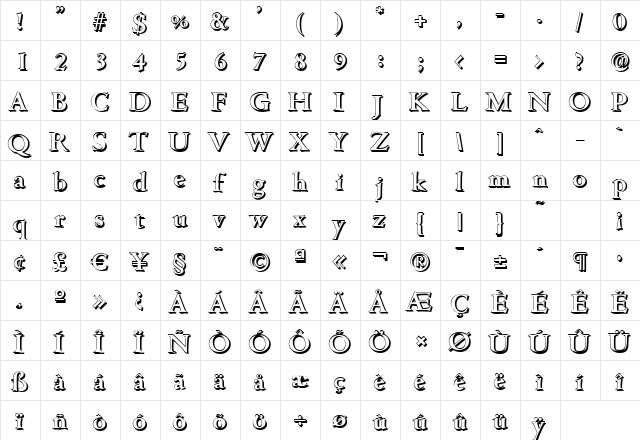
JohnBeckerShadow Bold Font Preview
JohnBeckerShadow Bold
Design Context for JohnBeckerShadow Typeface
JohnBeckerShadow is built around its visual character rather than neutral utility — its distinctive forms are designed to make an impression at display sizes. The heavy weight commands attention and anchors typographic hierarchies.
Font Pairing: Pair with a clean neutral sans-serif for body copy to let JohnBeckerShadow's character lead without overwhelming the composition.
Pro Tip: Use JohnBeckerShadow exclusively at display sizes — it was designed to be seen, not read at length. Let a neutral companion handle body copy.